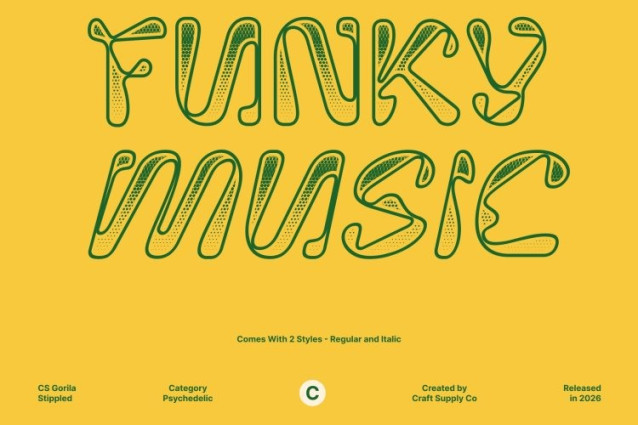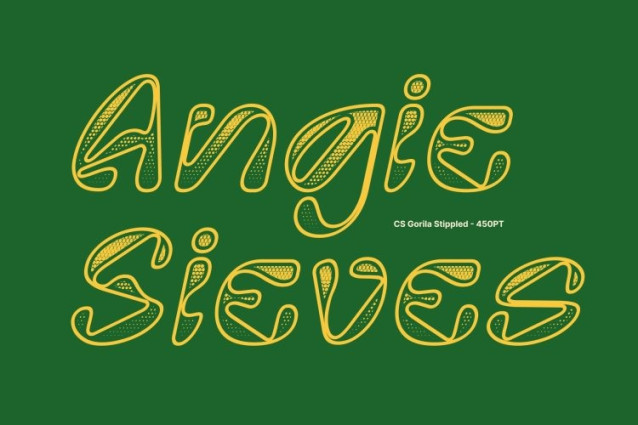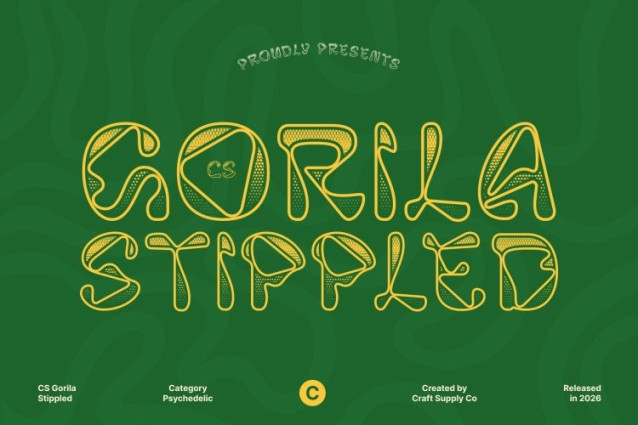
CS Gorila Stippled Font
CS Gorila Stippled Font is a modern display font that blends a trippy psychedelic aesthetic with a clean and contemporary structure. Its bold, fluid letterforms feature quirky and irregular shapes that create a lively sense of rhythm and motion. Enhanced with a stippled texture, the font gains a dotted, tactile surface that adds depth and a handcrafted visual character, making the playful design feel even more vibrant and dynamic.
Funky Personality with Visual Movement
Each letter in this font carries a unique, expressive shape that contributes to its funky and cheerful identity. The combination of psychedelic forms and subtle texture gives the typeface a rich visual personality while maintaining readability, allowing it to stand out confidently in display settings.
Playful, Artistic, and Full of Character
With its energetic curves and unconventional forms, this font radiates creativity and imagination. The stippled finish enhances its artistic charm, adding a textured dimension that strengthens its retro-inspired yet modern look.
Perfect for Creative and Youthful Designs
This font works beautifully for music posters, album covers, festival graphics, creative branding, experimental layouts, and youth-oriented campaigns. Its playful aesthetic captures the spirit of retro psychedelia while remaining adaptable for modern design applications.